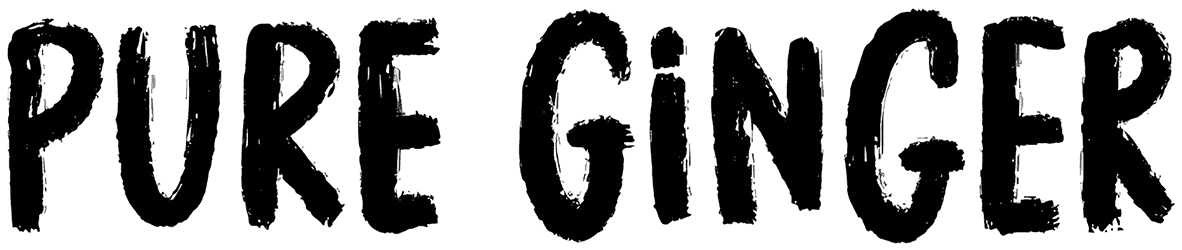
Pure Ginger Font
Brush font, Pure Ginger, aims to take audience interaction to a new level. If you want your designs for flyers, invitations, and anywhere else you need hand-drawn effects to stand out and attract more fans and customers, then you should use this script font.
In spite of its lack of lowercase characters, its tall, shabby appearance can be used to create a courageous, adaptable design. Check out the rest of RB to see what kind of fonts we have available.